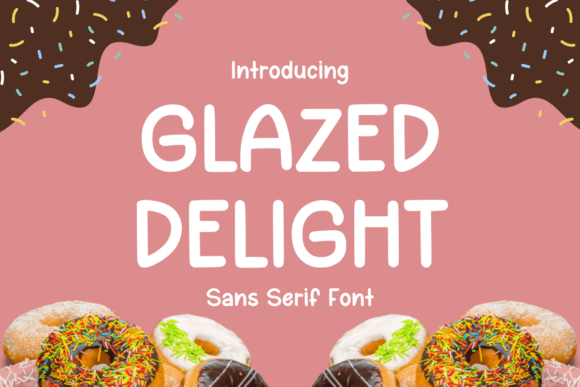
Glazed Delight Font: A Fun and Versatile Sans-Serif Font for Creative Projects
The Glazed Delight font is a fun and versatile sans-serif font that has gained popularity among designers and crafters alike. Its unique and playful style makes it an excellent choice for a wide range of creative projects, from memos and journals to cards, invitations, and scrapbooks. In this article, we’ll explore the features and benefits of the Glazed Delight font, and discuss its suitability for various applications.
What is Glazed Delight Font?
Glazed Delight is a sans-serif font that boasts a fun and modern design. Its clean lines and rounded edges give it a friendly and approachable feel, making it perfect for projects that require a touch of whimsy and personality. The font is highly legible, even at small sizes, making it suitable for use in a variety of contexts.
Features of Glazed Delight Font
The Glazed Delight font has several features that make it an attractive choice for designers and crafters. Some of its key features include:
- Fun and playful design: The Glazed Delight font has a unique and playful style that adds a touch of personality to any project.
- High legibility: The font is highly legible, even at small sizes, making it suitable for use in a variety of contexts.
- Versatility: The Glazed Delight font is highly versatile and can be used for a wide range of creative projects.
Uses of Glazed Delight Font
The Glazed Delight font is suitable for a wide range of creative projects, including:
- Memos and journals: The font’s playful design makes it perfect for use in memos and journals.
- Cards and invitations: The Glazed Delight font is ideal for creating cards and invitations for special occasions.
- Scrapbooks: The font’s fun and playful design makes it a great choice for scrapbooking.
- Interior KDPs: The Glazed Delight font is suitable for use in interior KDPs, such as journals, planners, and notebooks.
- Halloween and Christmas projects: The font’s playful design makes it perfect for use in Halloween and Christmas projects.
- Buddhist and Thanksgiving projects: The Glazed Delight font can also be used for Buddhist and Thanksgiving projects.
- Funky and fall projects: The font’s fun and playful design makes it suitable for use in funky and fall projects.
- Laser cut and tumbler wrap: The Glazed Delight font can be used for laser cut and tumbler wrap projects.
- Seamless patterns and mockups: The font is also suitable for use in seamless patterns and mockups.
- T-shirts and quotes: The Glazed Delight font can be used for t-shirts and quotes.
- Tarot and zodiac projects: The font’s playful design makes it perfect for use in tarot and zodiac projects.
Benefits of Using Glazed Delight Font
The Glazed Delight font offers several benefits to designers and crafters, including:
- Unique and playful design: The font’s unique and playful design adds a touch of personality to any project.
- High versatility: The Glazed Delight font is highly versatile and can be used for a wide range of creative projects.
Tips for Using Glazed Delight Font
Here are some tips for using the Glazed Delight font:
- Use it for creative projects: The Glazed Delight font is perfect for use in creative projects, such as scrapbooking, card making, and journaling.
- Experiment with different sizes: The font is highly legible, even at small sizes, so feel free to experiment with different sizes.
- Pair it with other fonts: The Glazed Delight font can be paired with other fonts to create a unique and interesting design.
- Use it for digital and print projects: The font is suitable for use in both digital and print projects.
The Glazed Delight font is a fun and versatile sans-serif font that is perfect for creative projects. Its unique and playful design makes it an excellent choice for designers and crafters who want to add a touch of personality to their work. With its high legibility, ease of use, and cost-effectiveness, the Glazed Delight font is an excellent addition to any designer’s or crafter’s toolkit.